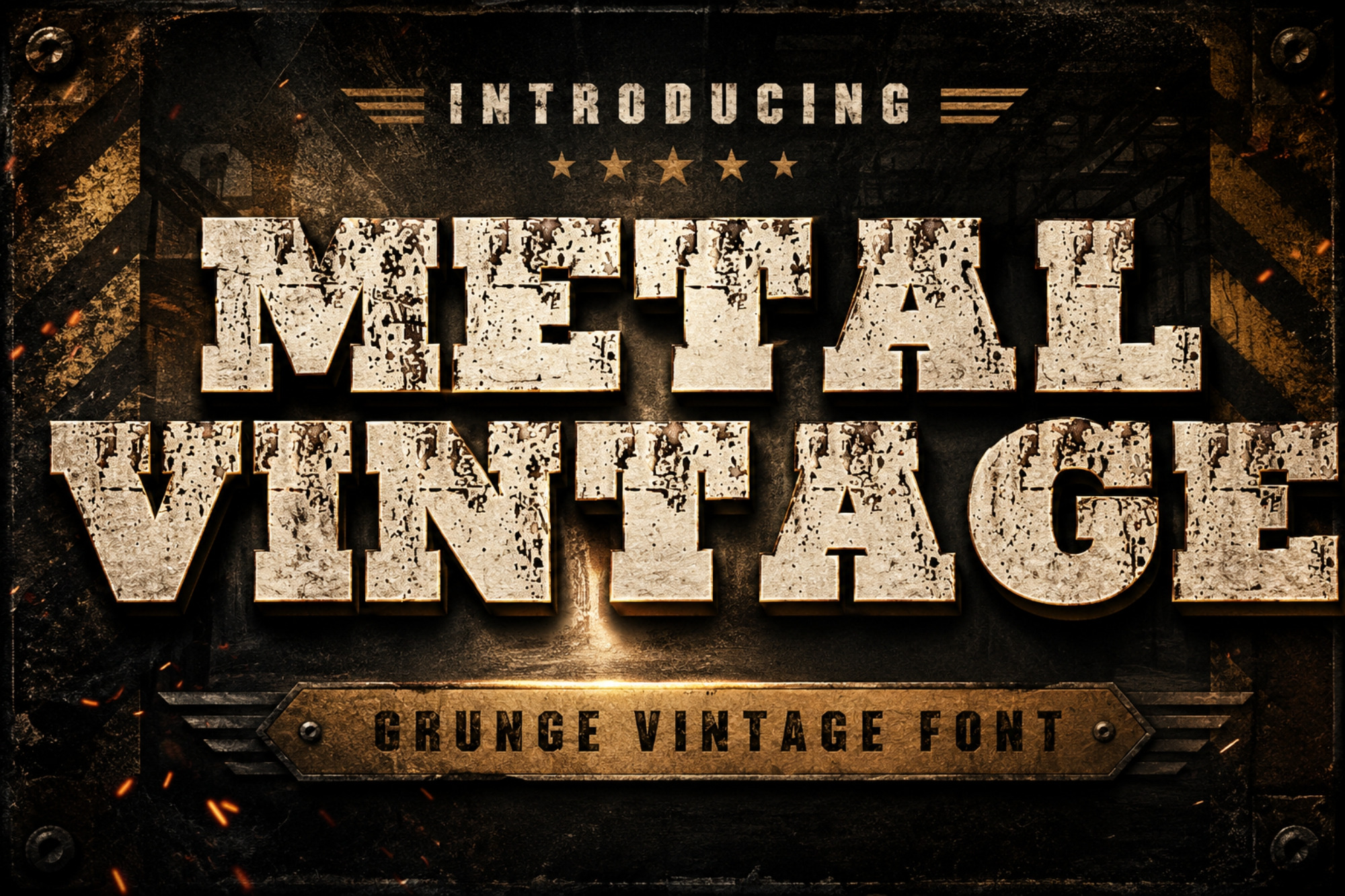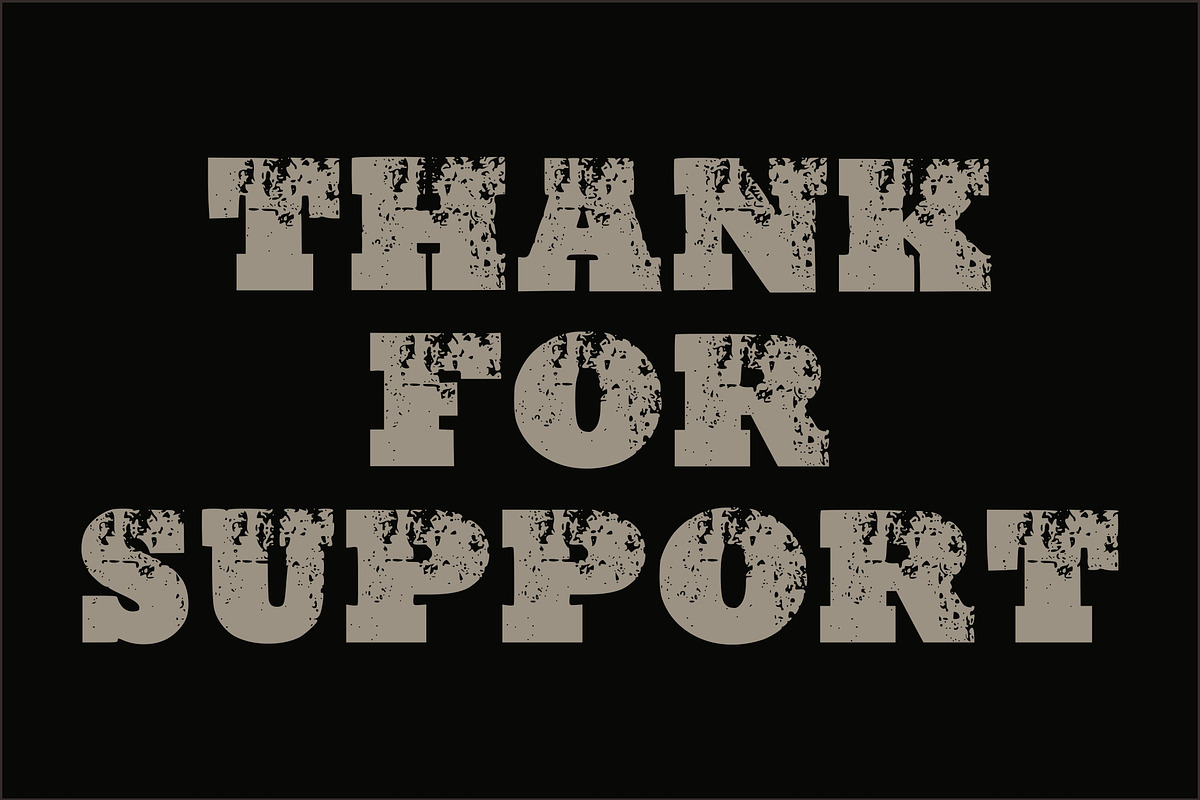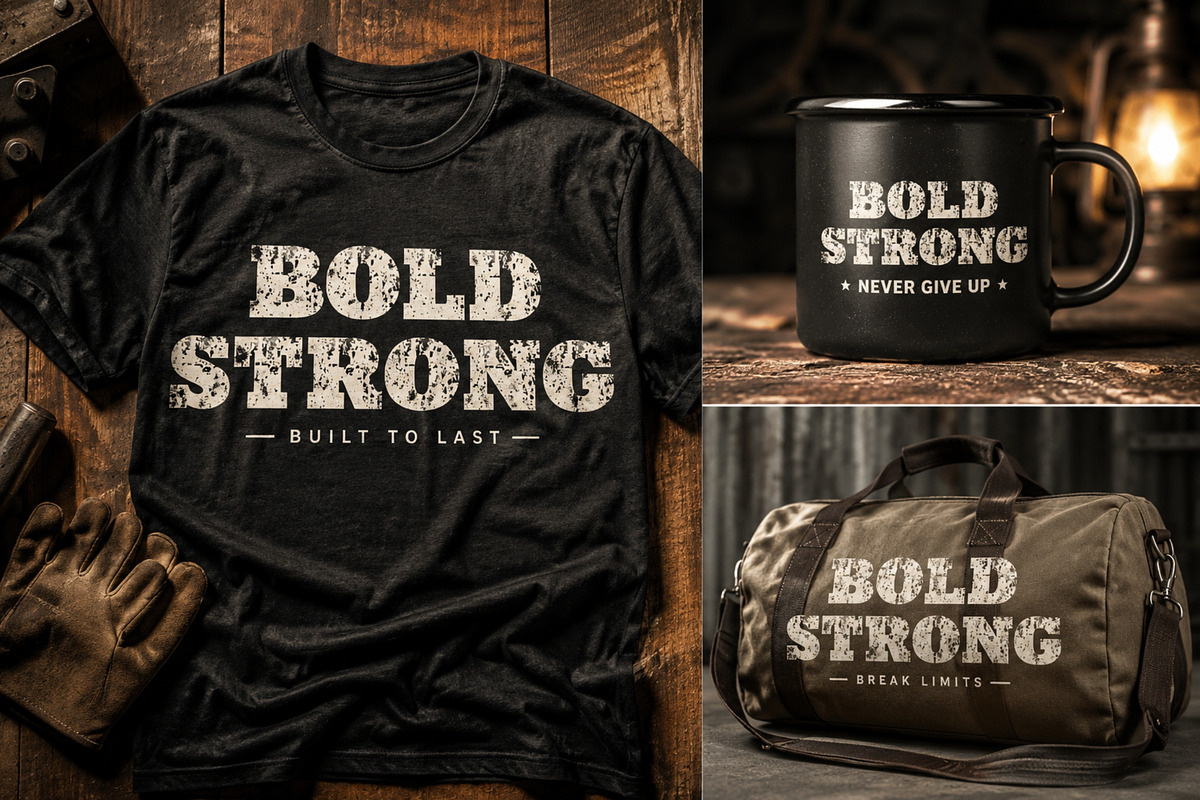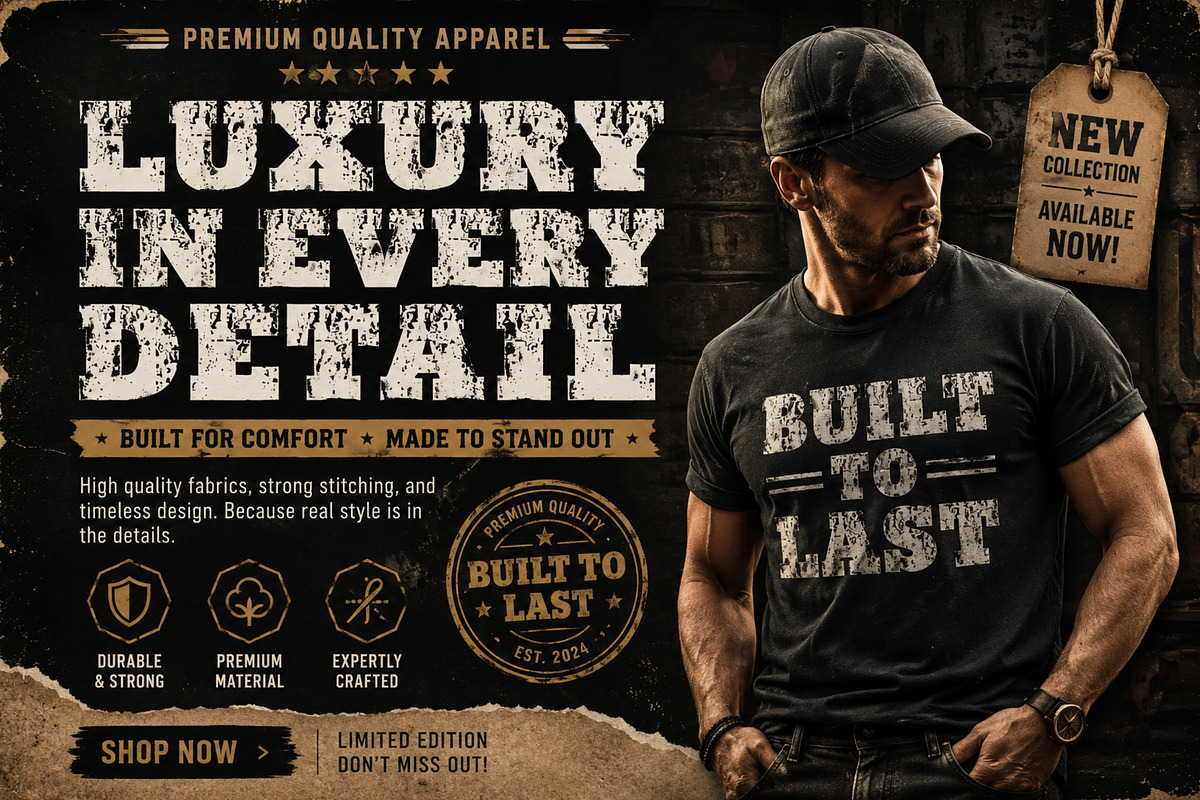
Metal Vintage – Grunge Font
Bring a powerful industrial feel to your projects with Metal Vintage, a bold grunge display font crafted for eye-catching typography. Its distressed texture and vintage metal-inspired style create an authentic worn appearance that stands out across print and digital media.
Vintage & Retro Branding
Industrial Logos
Posters & Flyers
T-Shirt Designs
Beer & Whiskey Labels
Motorcycle & Garage Branding
Construction & Workshop Graphics
Game Titles
YouTube Thumbnails
Album Covers
Signage
Advertising Campaigns
Uppercase Characters
High-Quality Display Typeface